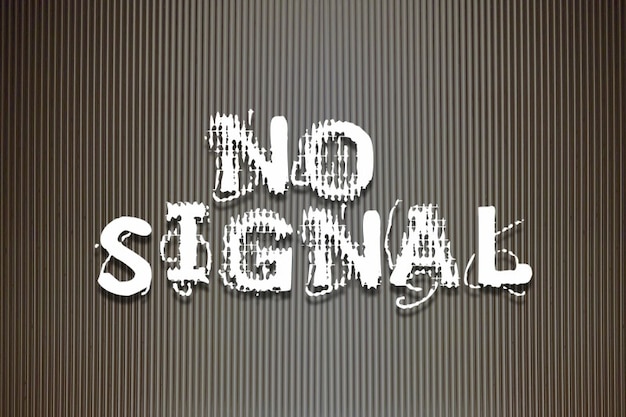
No Signal
No Signal Font
"No Signal" is a captivating font that embodies the essence of digital disruption. Each letter appears unfocused and blurred, creating an illusion of static interference, reminiscent of a lost connection. The grunge texture adds an edgy, raw quality, making it ideal for designs that convey a sense of chaos, uncertainty, or a rebellious spirit in a tech-driven world.